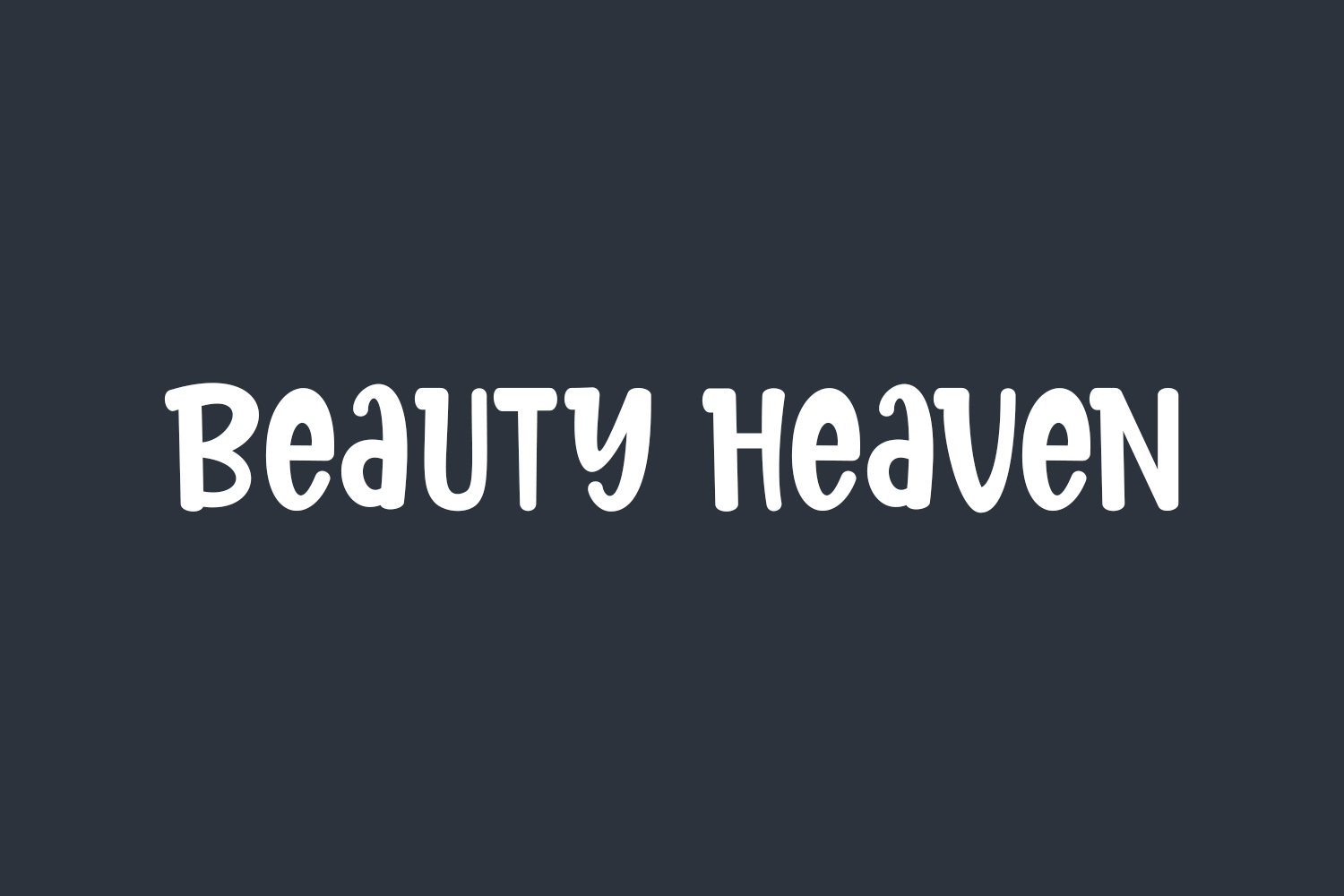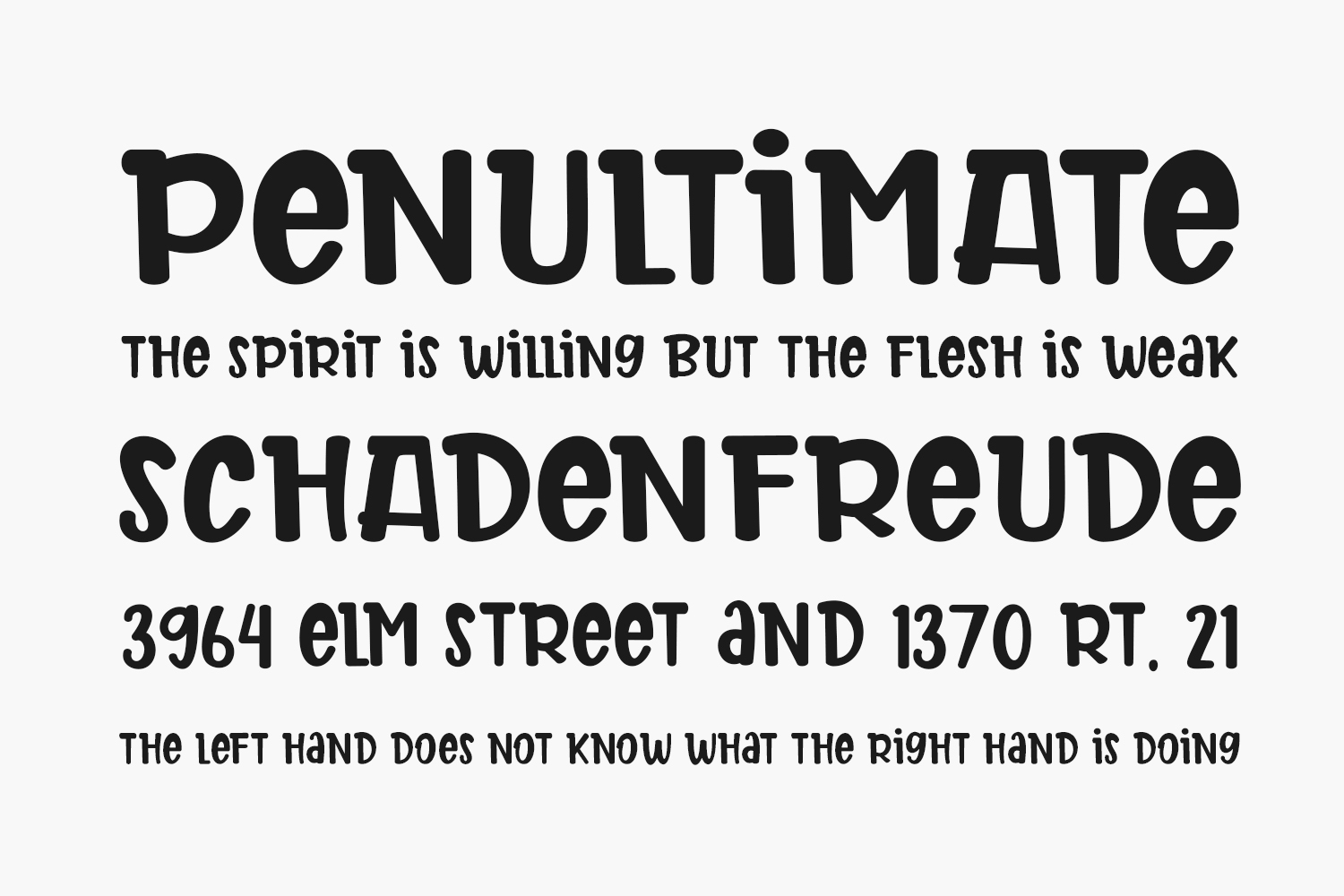
Beauty Heaven Free Font is a cute and fun display font. Add this chunky lettered font to your designs and notice how it makes them come alive. Beauty Heaven Free Font was designed by Supersemar Letter and is free for personal use only. Please purchase the full version for commercial use.